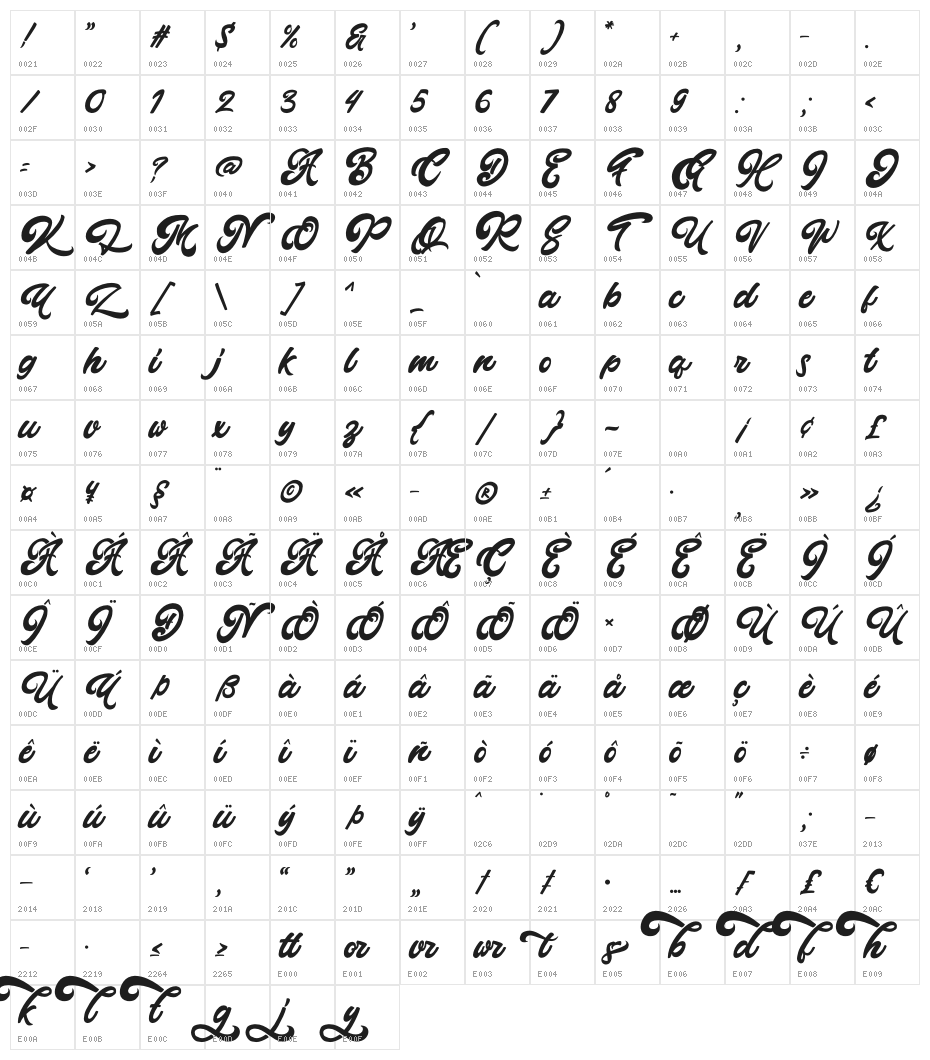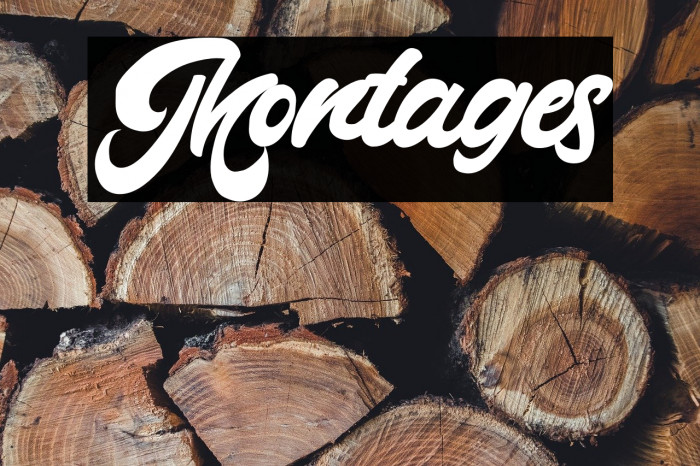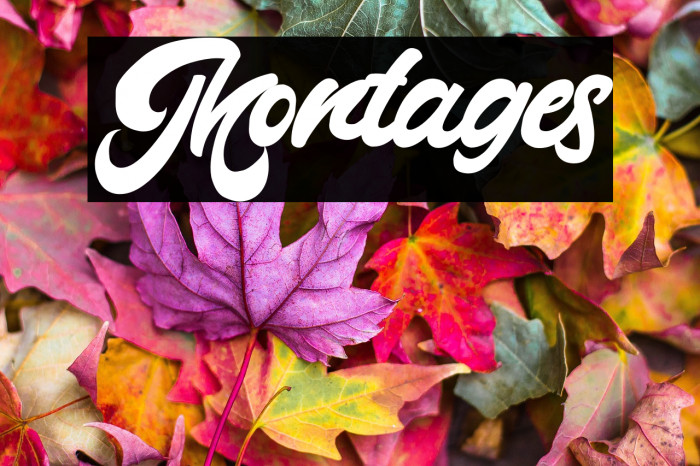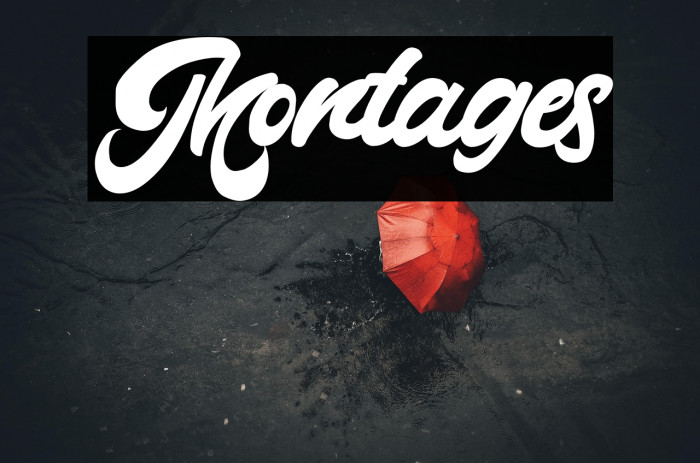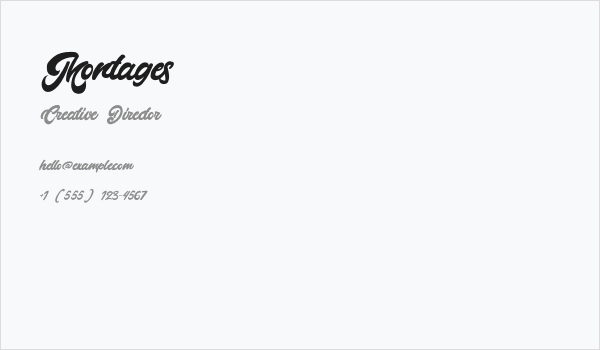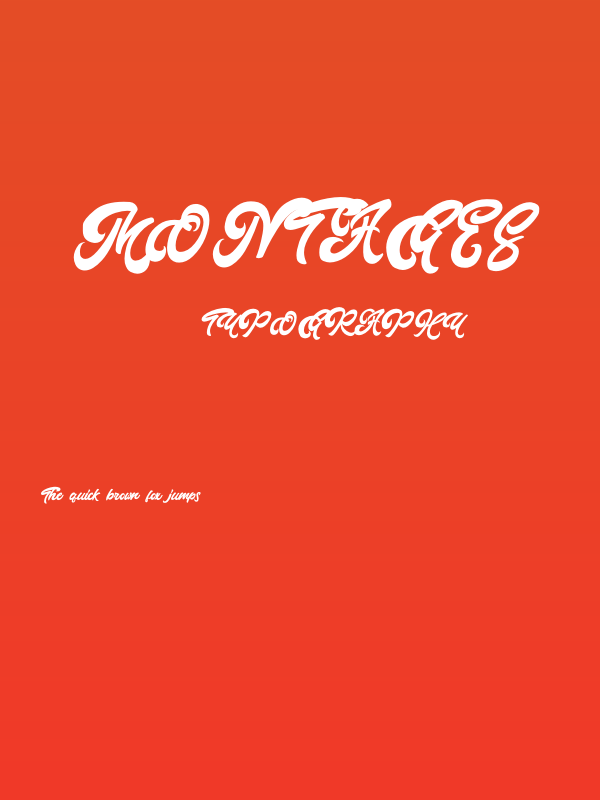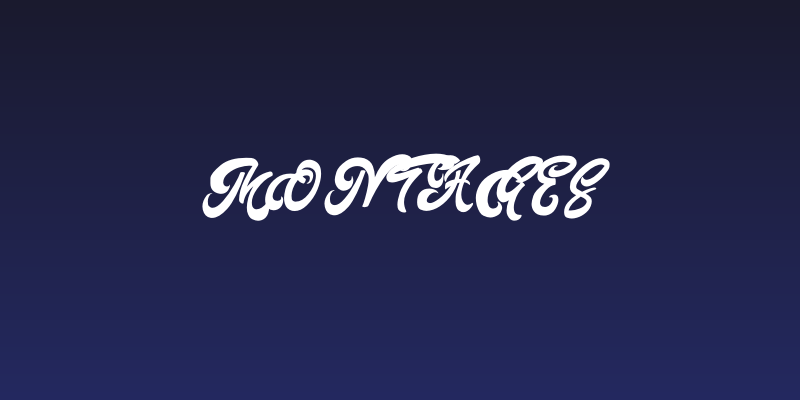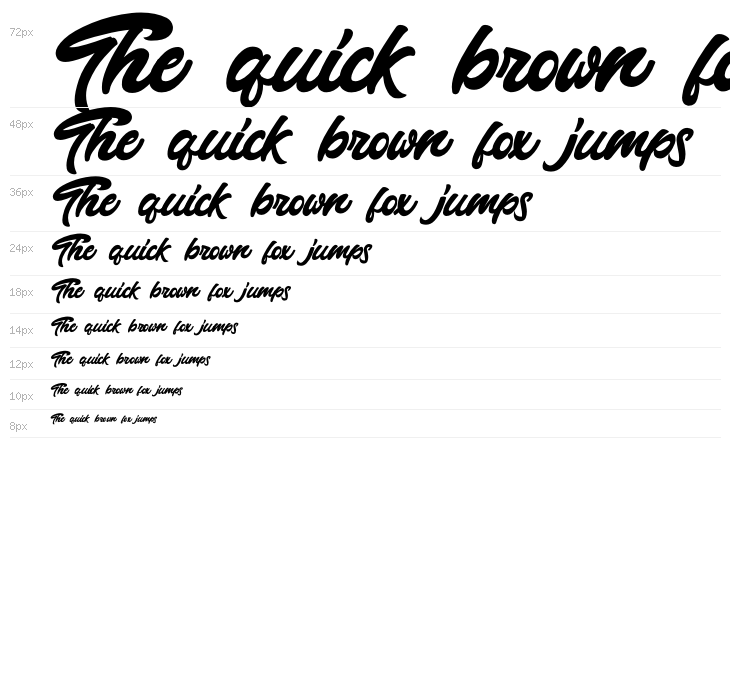
Montages Font
Montages Description
This font features a bold and flowing script style, characterized by its elegant and cursive letterforms. The uppercase letters exhibit a dramatic flair with sweeping curves and loops, while the lowercase letters maintain a consistent fluidity, enhancing readability. The numerals are designed with the same attention to detail, ensuring they blend seamlessly with the alphabetic characters. Special characters are crafted with artistic touches, adding to the font's overall decorative appeal. The font's bold weight and high contrast between thick and thin strokes make it stand out, ideal for creating eye-catching designs.
Use CaseLogos, Headlines
Proposed ProjectsIdeal for wedding invitations, branding, logo design, and decorative headlines.